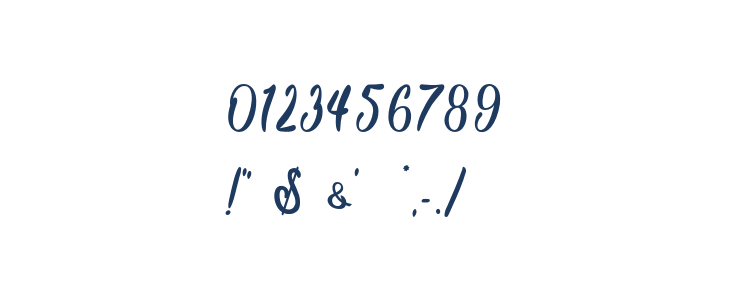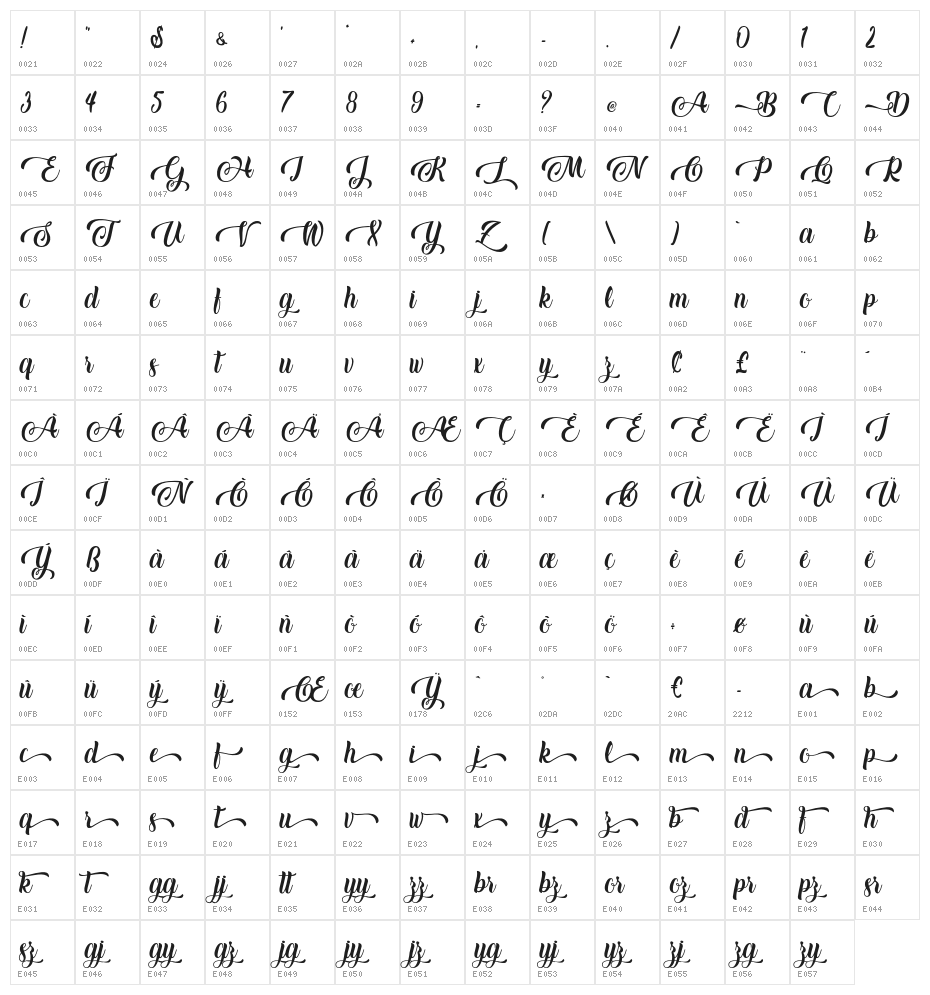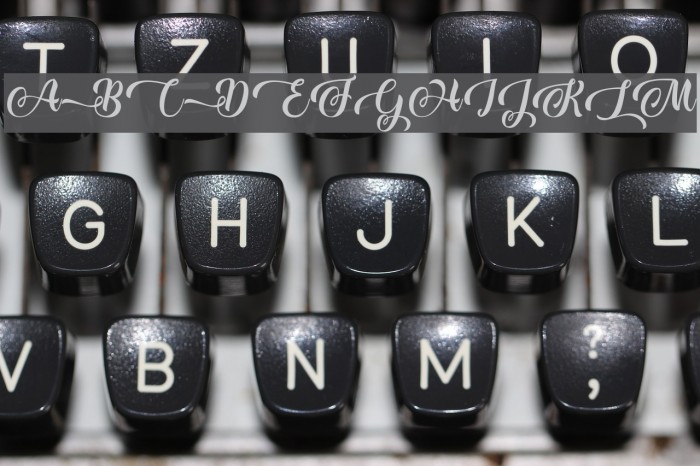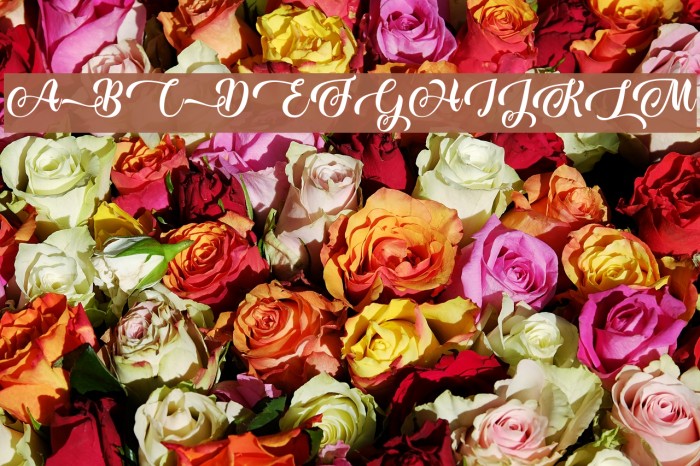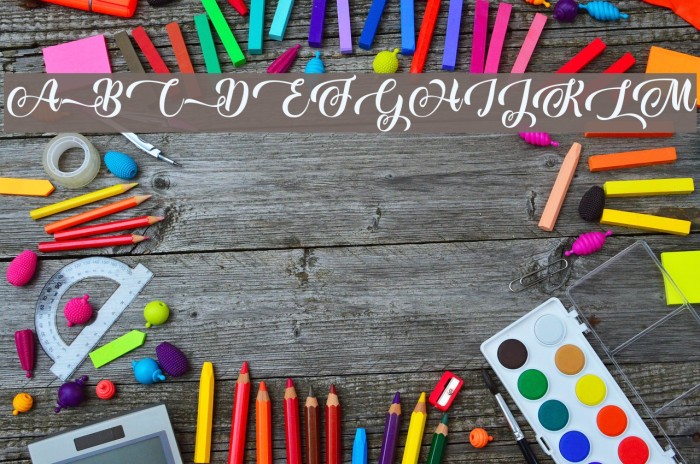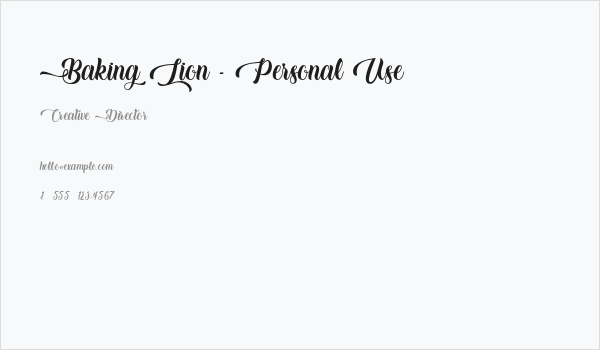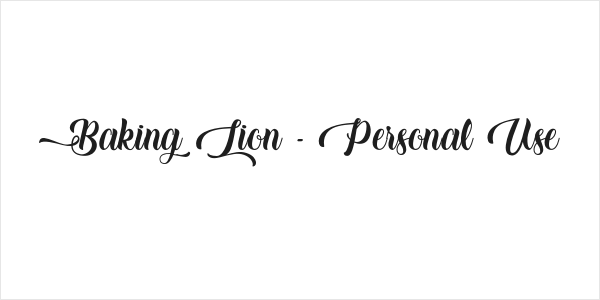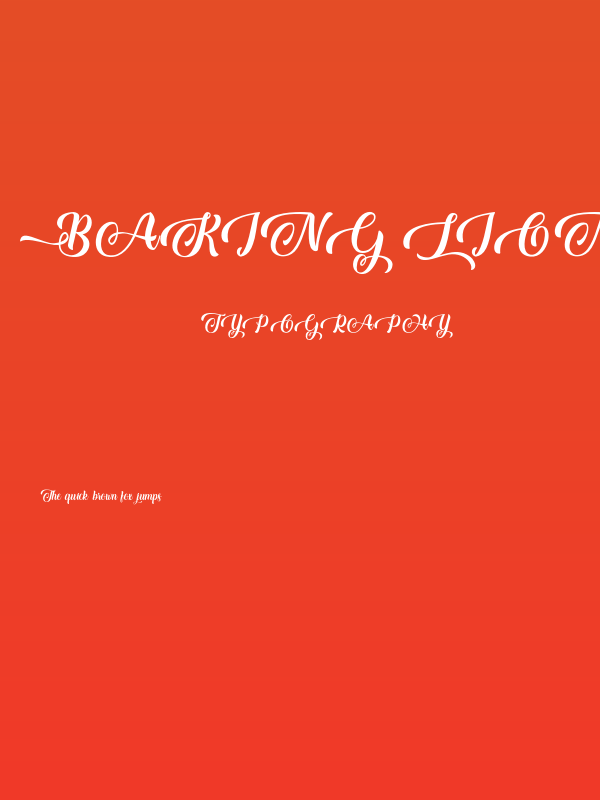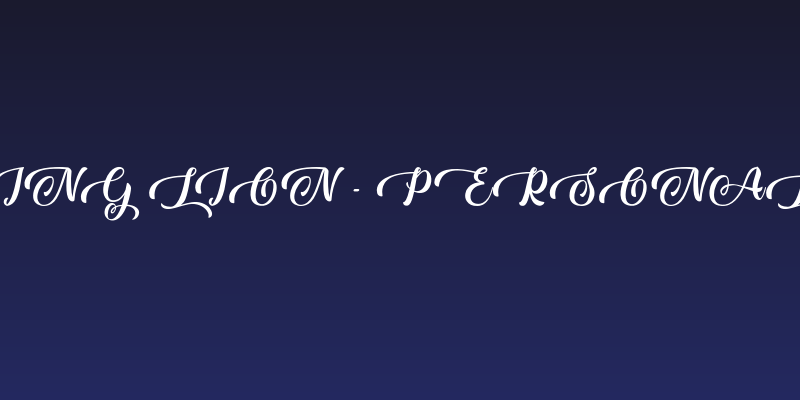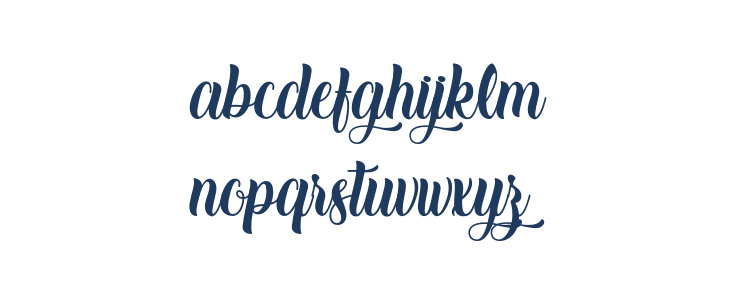
Baking Lion - Personal Use Font
Baking Lion - Personal Use Description
This font exudes elegance and sophistication with its flowing script style. The uppercase letters are adorned with graceful swashes and loops, giving them a decorative flair. The lowercase letters maintain a smooth, cursive flow, enhancing readability while retaining an artistic touch. Numbers and special characters are designed with the same attention to detail, ensuring consistency across all glyphs. The overall appearance is both stylish and versatile, making it suitable for various creative applications. Its bold strokes and high contrast between thick and thin lines add to its visual impact, making it ideal for projects that require a touch of elegance and personality.